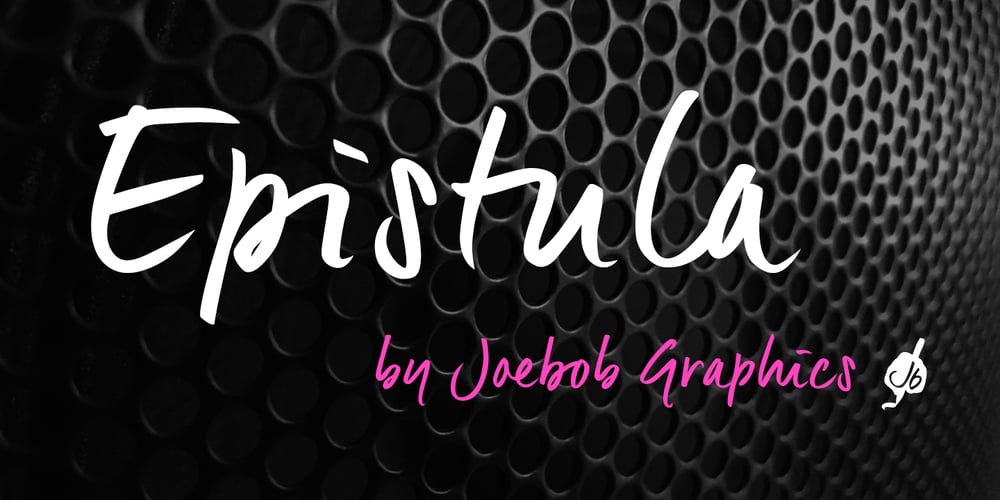
Epistula Font Family was designed by Geert Dijkers and published by JOEBOB graphics. Epistula contains 2 styles and family package options. Containing over 100 ligatures, Epistula is a loosely written font, resembling my own natural way of writing. It has a nice flow and the pointy tail-ends give it a certain speed. Creating Epistula has been a long process, but returning to the drawing board a few times has – in my humble opinion – paid off. This font comes in two weights: regular and medium. Because sometimes one flavour just isn’t enough…